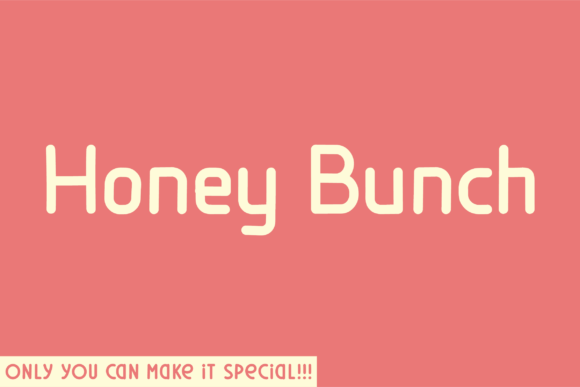
Step into a world of charm and elegance with Honey Bunch Font, a captivating sans serif typeface inspired by the beauty of handwritten notes and vintage lettering. This exquisite font family exudes a timeless allure that will add a dash of sophistication to any design project.
Dive into the world of Honey Bunch and be captivated by its elegant curves and playful strokes. This font is a true masterpiece, carefully crafted by the talented Hanna Bie, designed to evoke a sense of nostalgia and romance. Its bold presence and timeless charm make it a standout choice for those seeking a classic touch in their designs.
Transport yourself to a bygone era with Honey Bunch, a font that evokes the charm of vintage typewriters and handwritten letters. Its distinct character adds a personal touch to quotes, notes, tees, logos, social media, and any design that calls for a touch of timeless elegance.
With Honey Bunch, you'll have the power to transform your designs into works of art. Its versatility knows no bounds, allowing you to create beautiful and engaging content that captures the attention of your audience. Embrace the power of Honey Bunch and let your creativity soar!
But that's not all! Honey Bunch is more than just a font; it's an experience. It's a way to add a touch of personality and charm to your designs, making them stand out from the crowd. Whether you're a seasoned designer or just starting out, Honey Bunch is the perfect choice for adding a dash of elegance and sophistication to your projects.